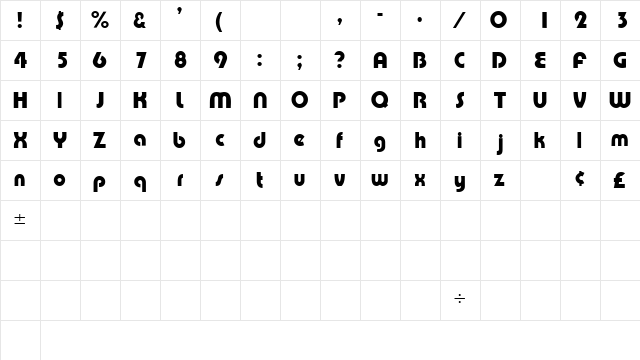
CelestiSSK Regular
Design Context for CelestiSSK Typeface
CelestiSSK takes a measured approach to typography — its balanced proportions and neutral character make it a reliable workhorse for both digital and print work.